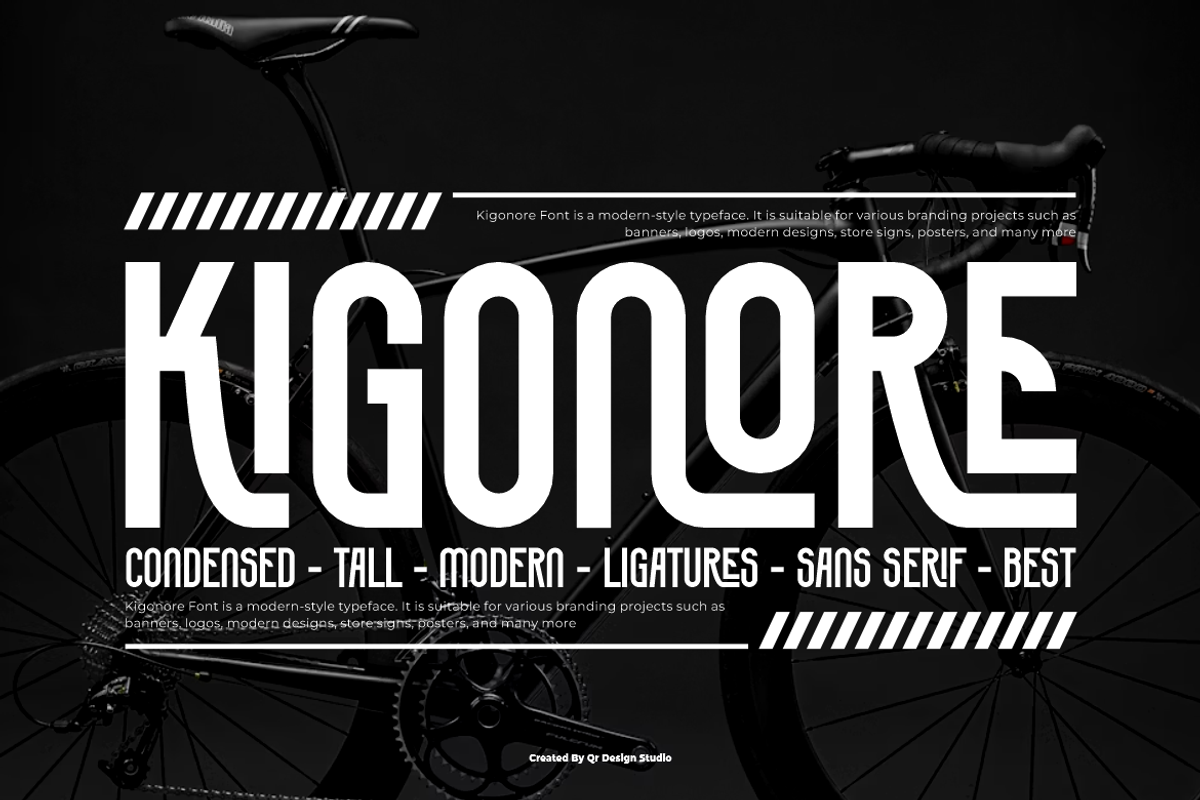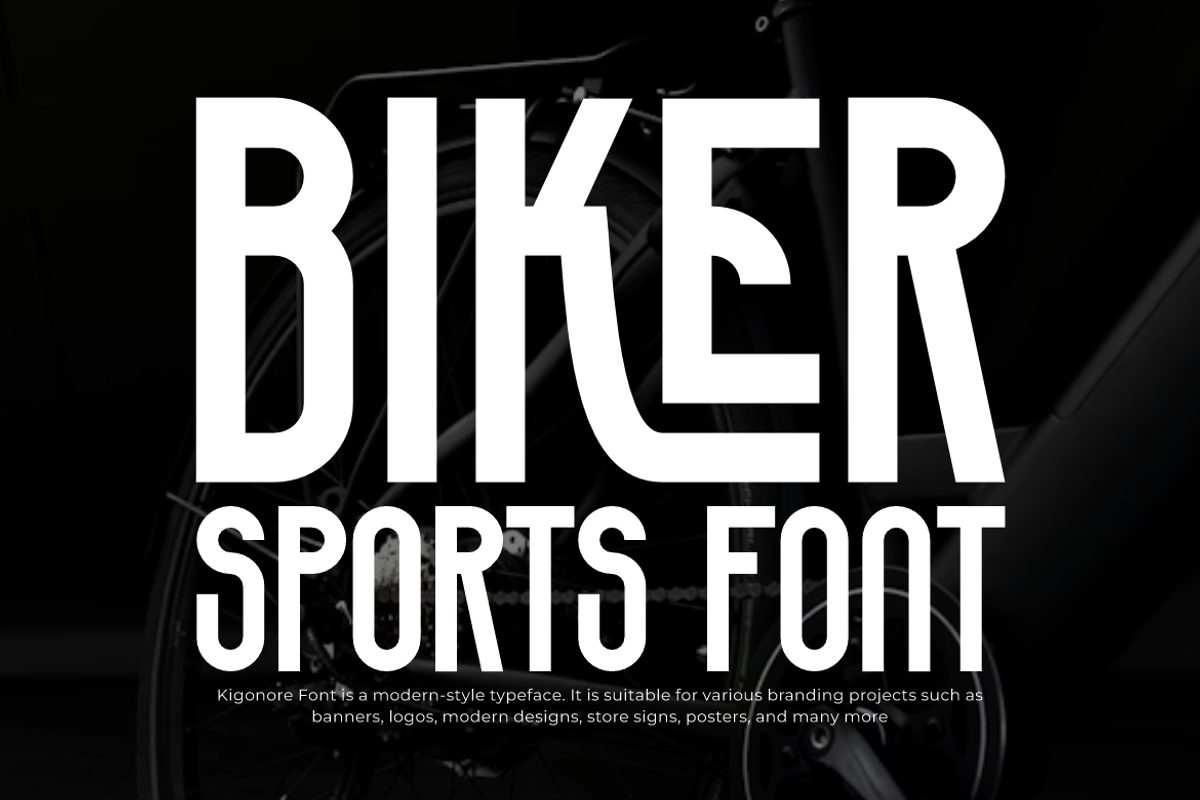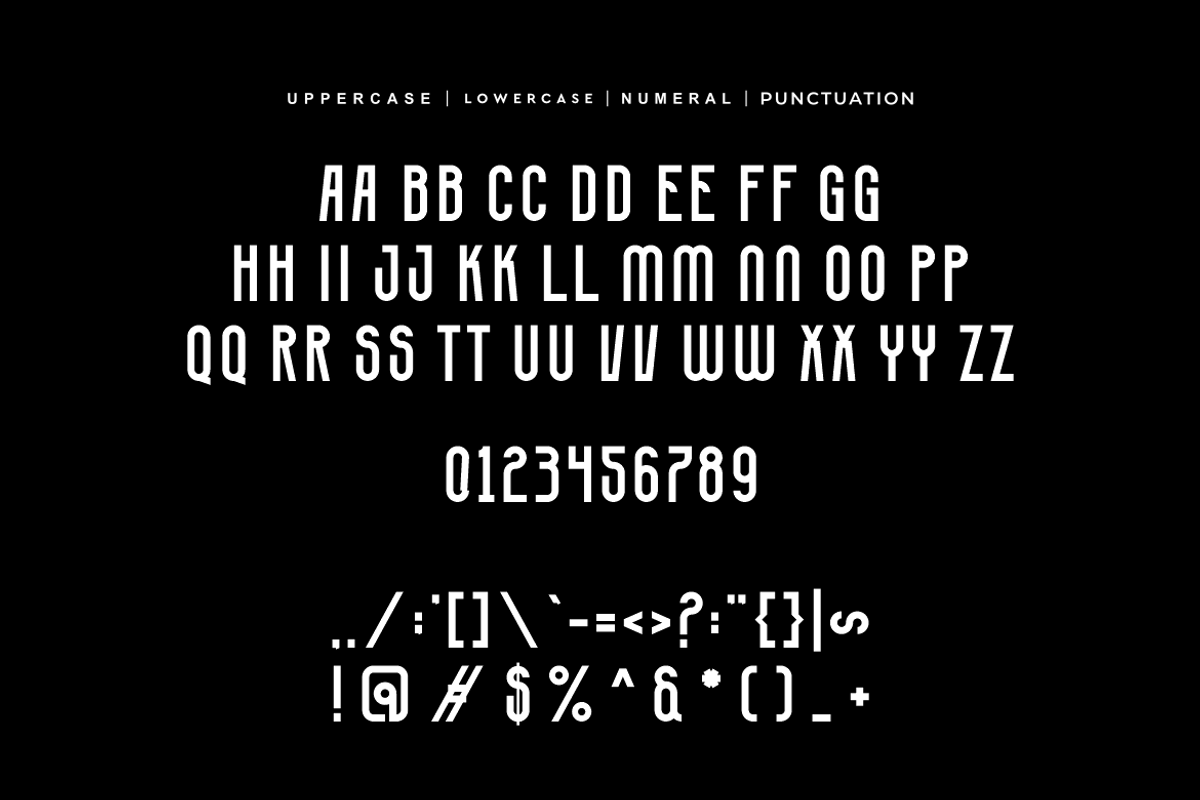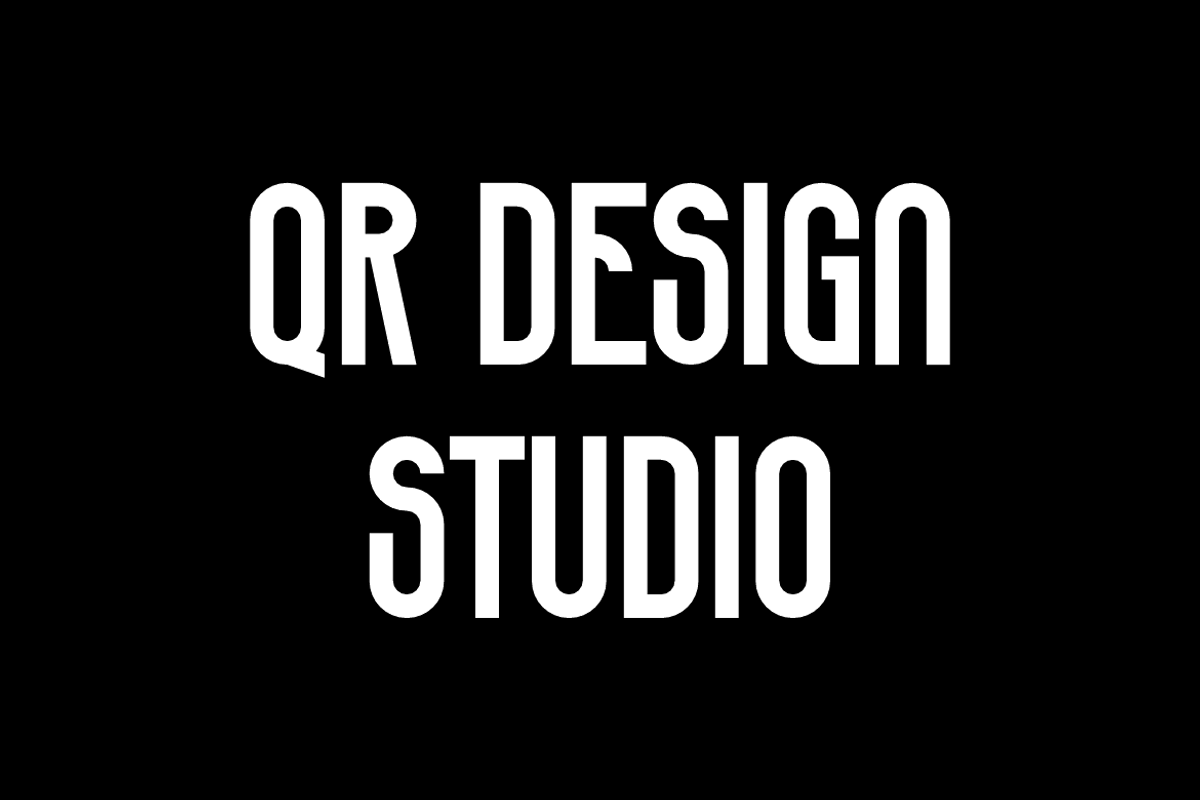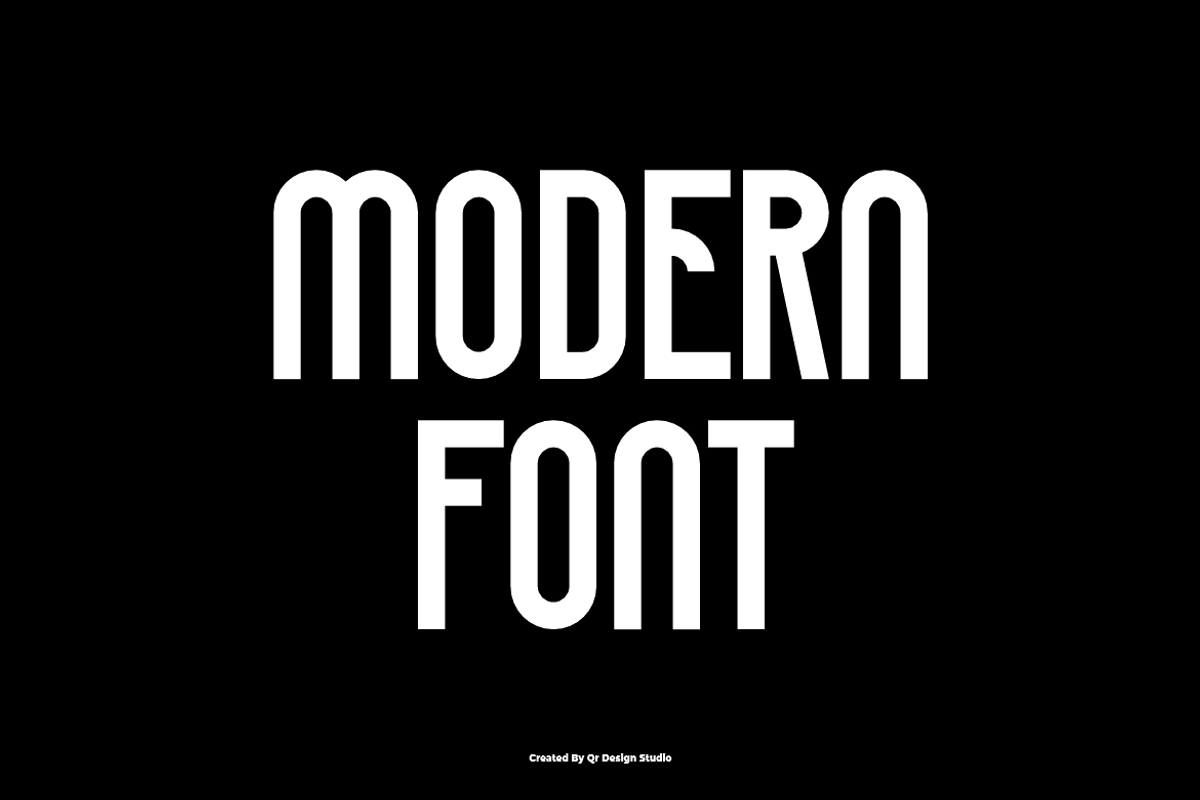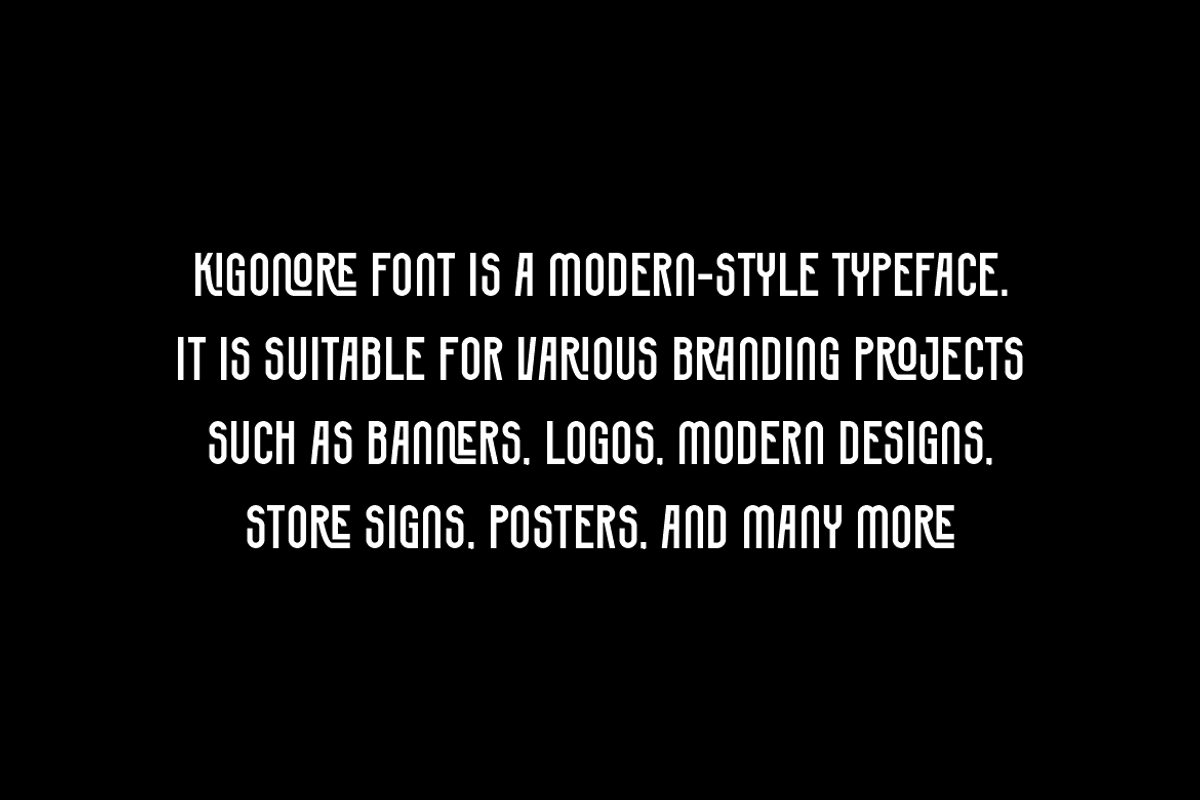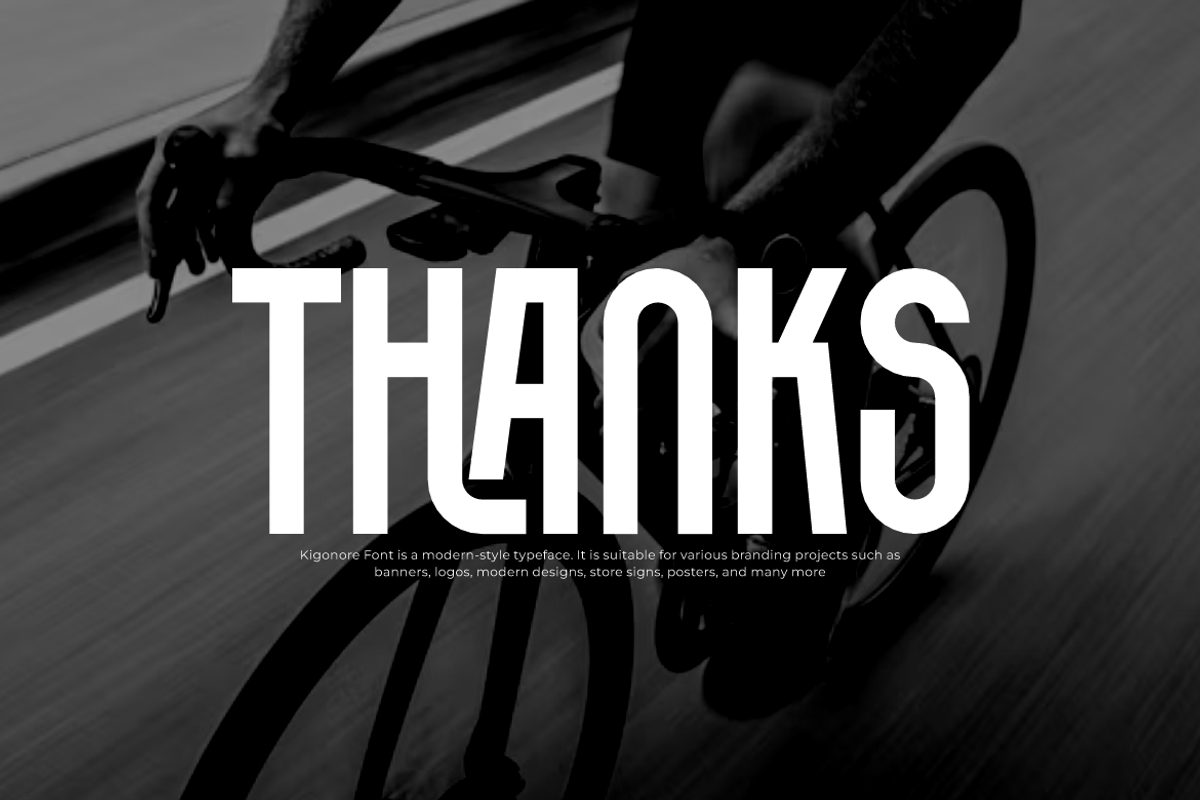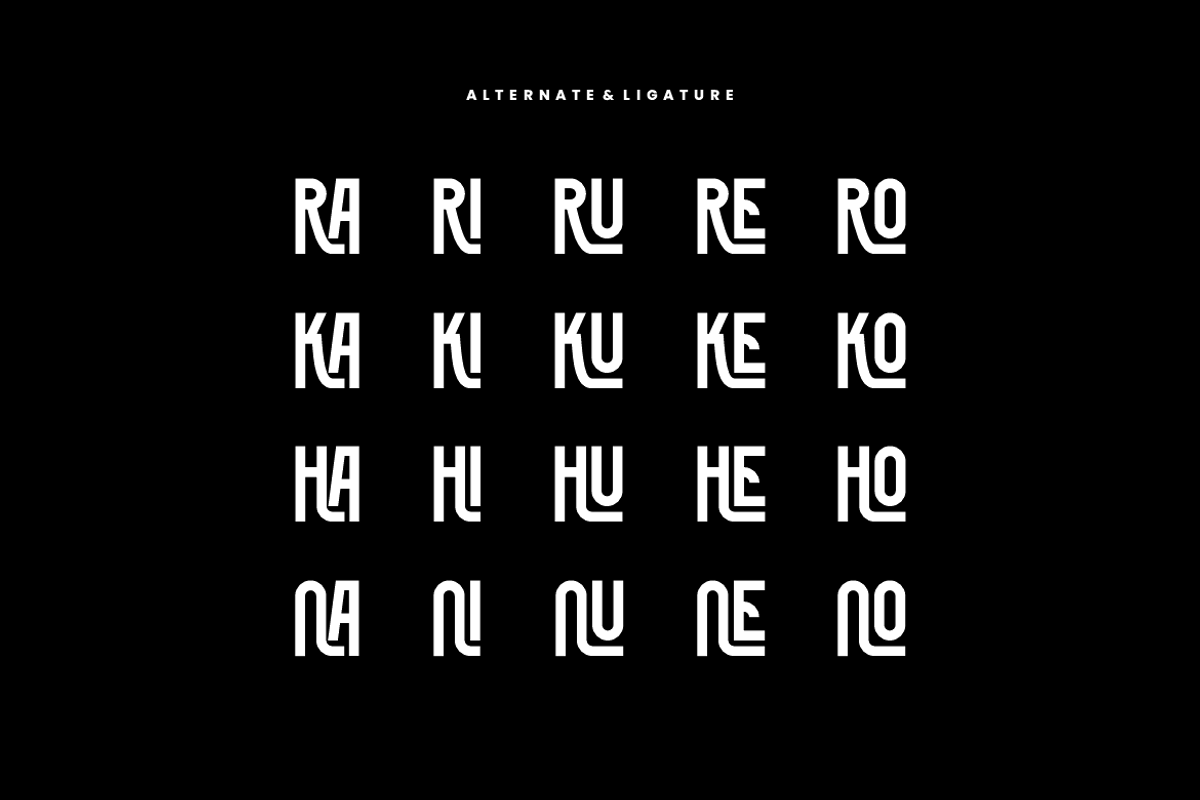
Kigonore - Tall Ligatures Font
Kigonore Font is a bold and authentic display typeface. It’s perfect for various branding projects such as logos, sports designs, and more. This font stands out beautifully in a wide range of contexts.